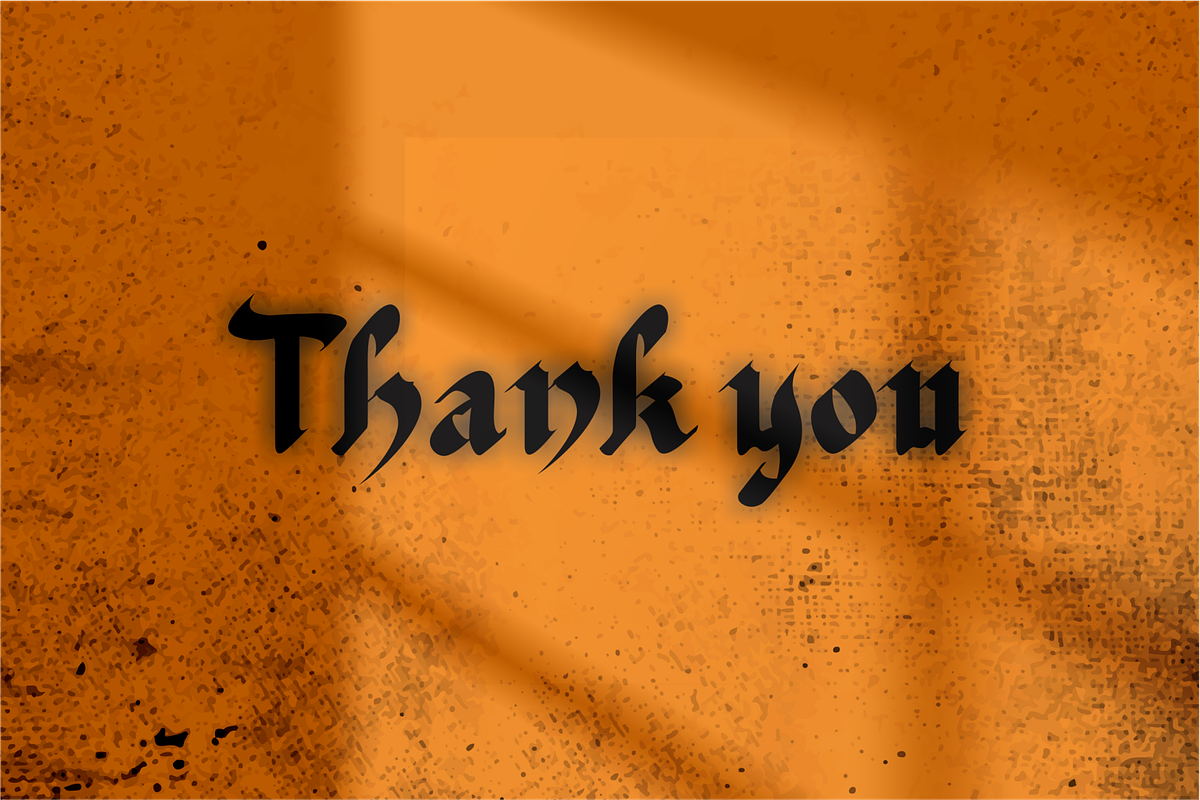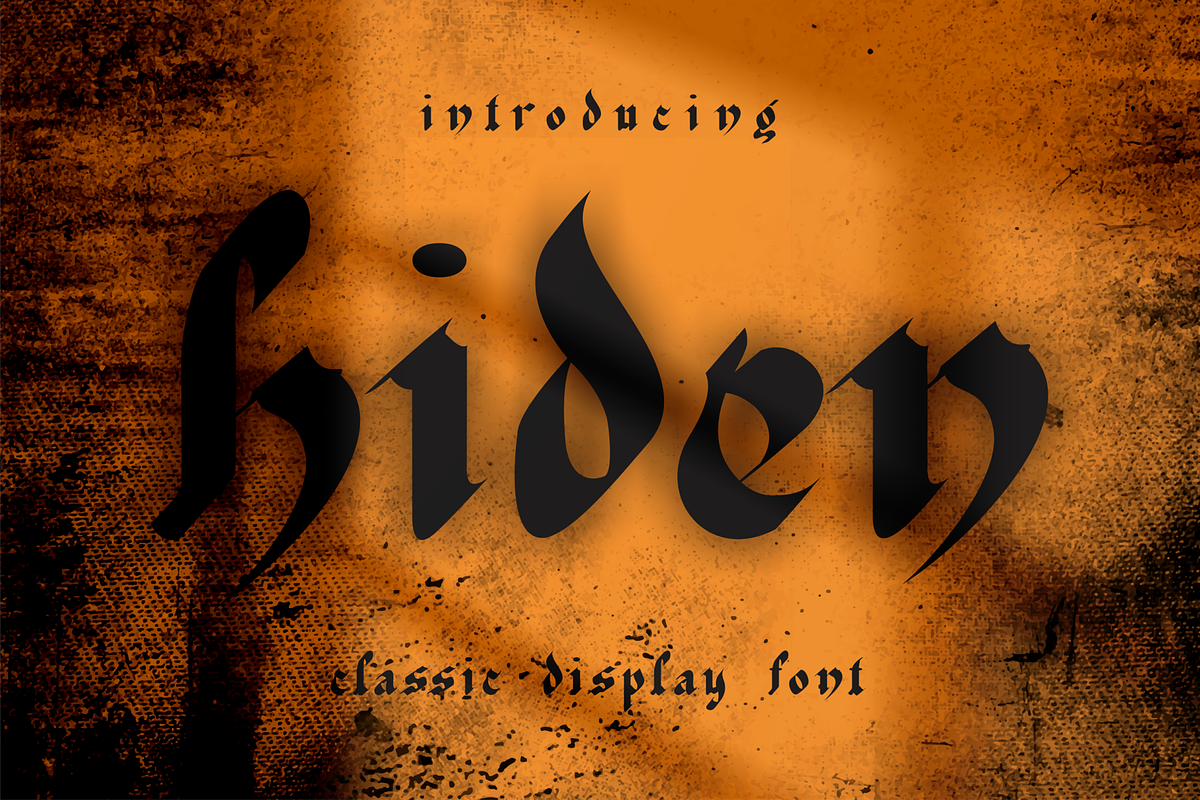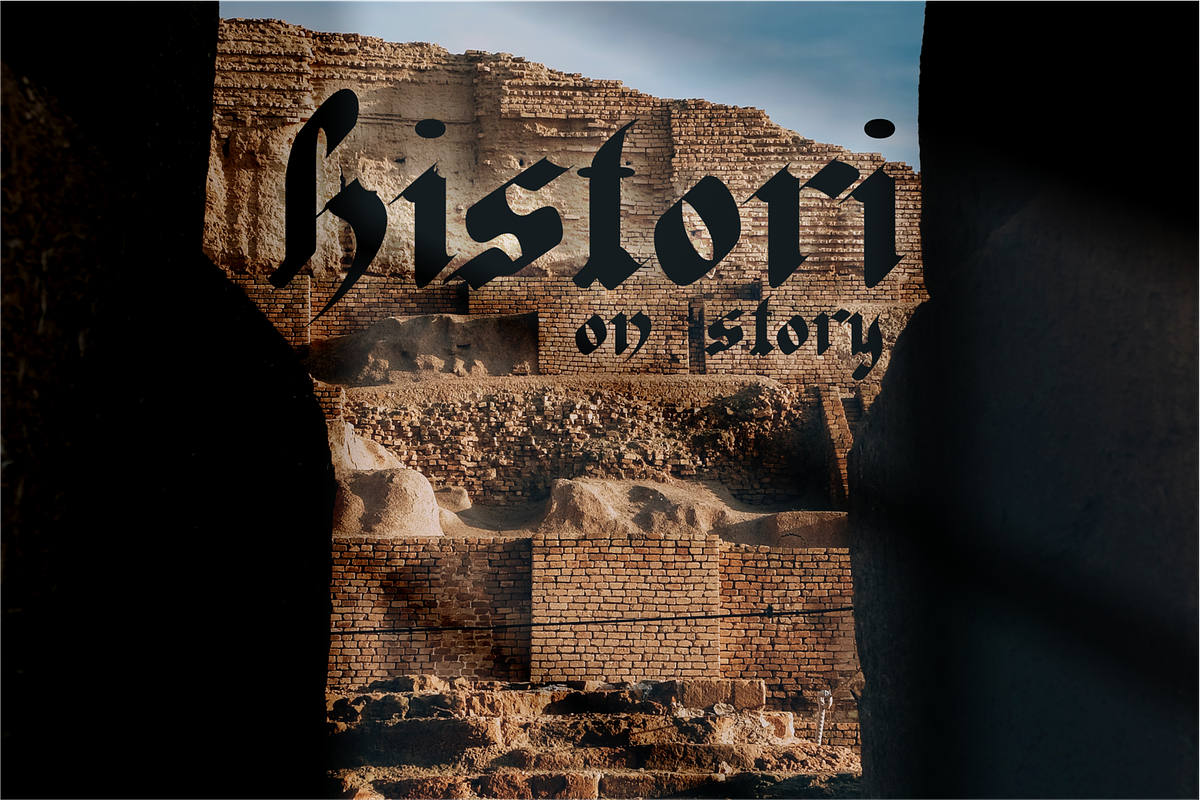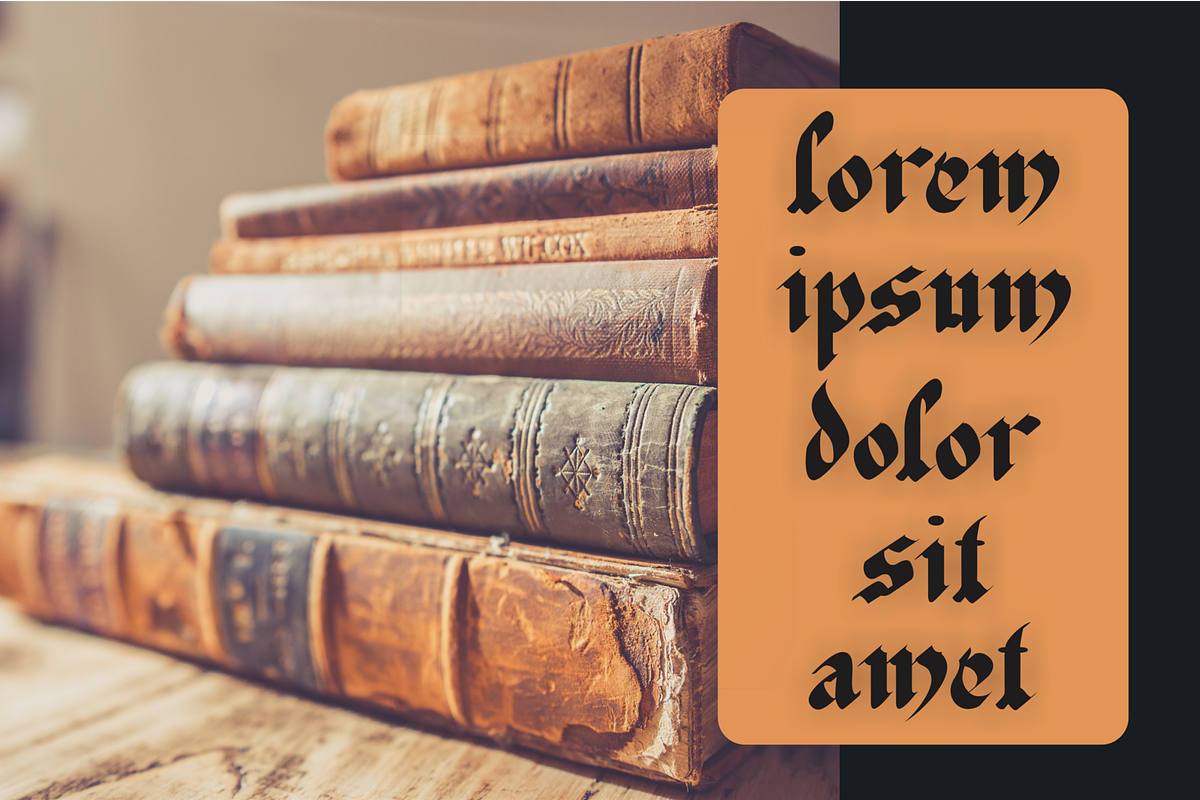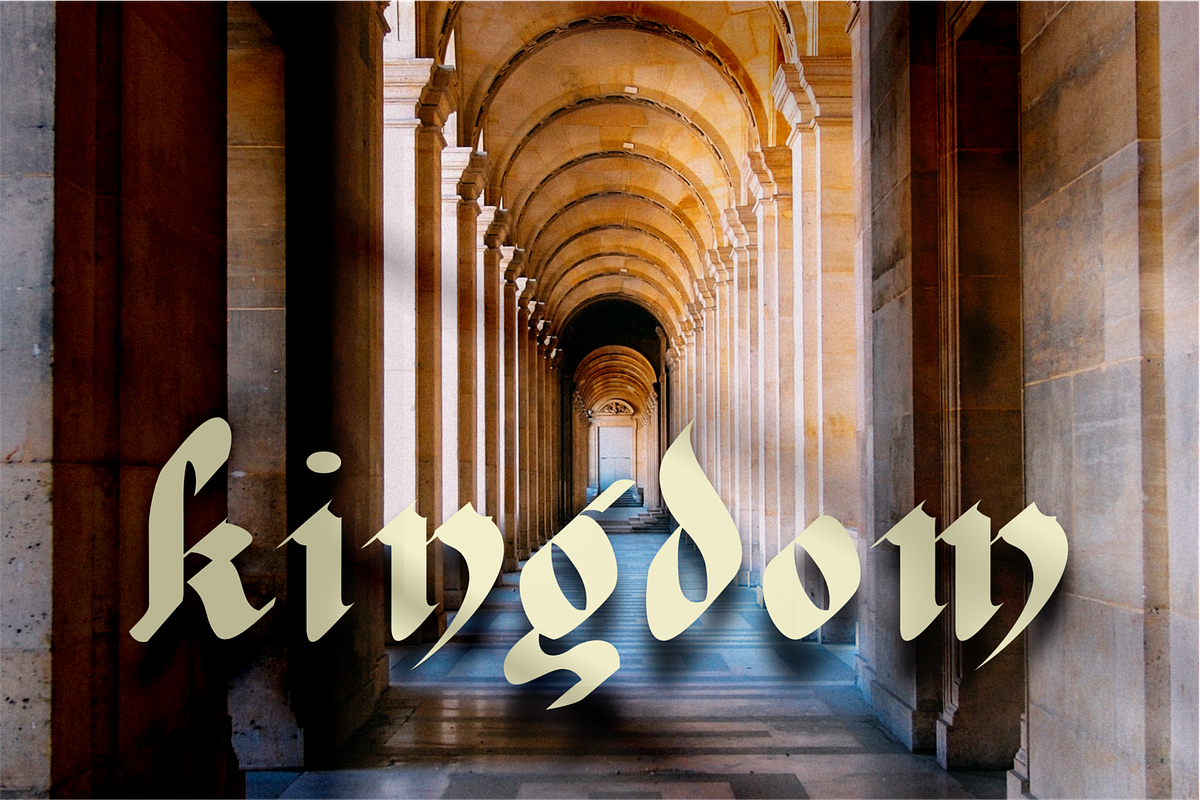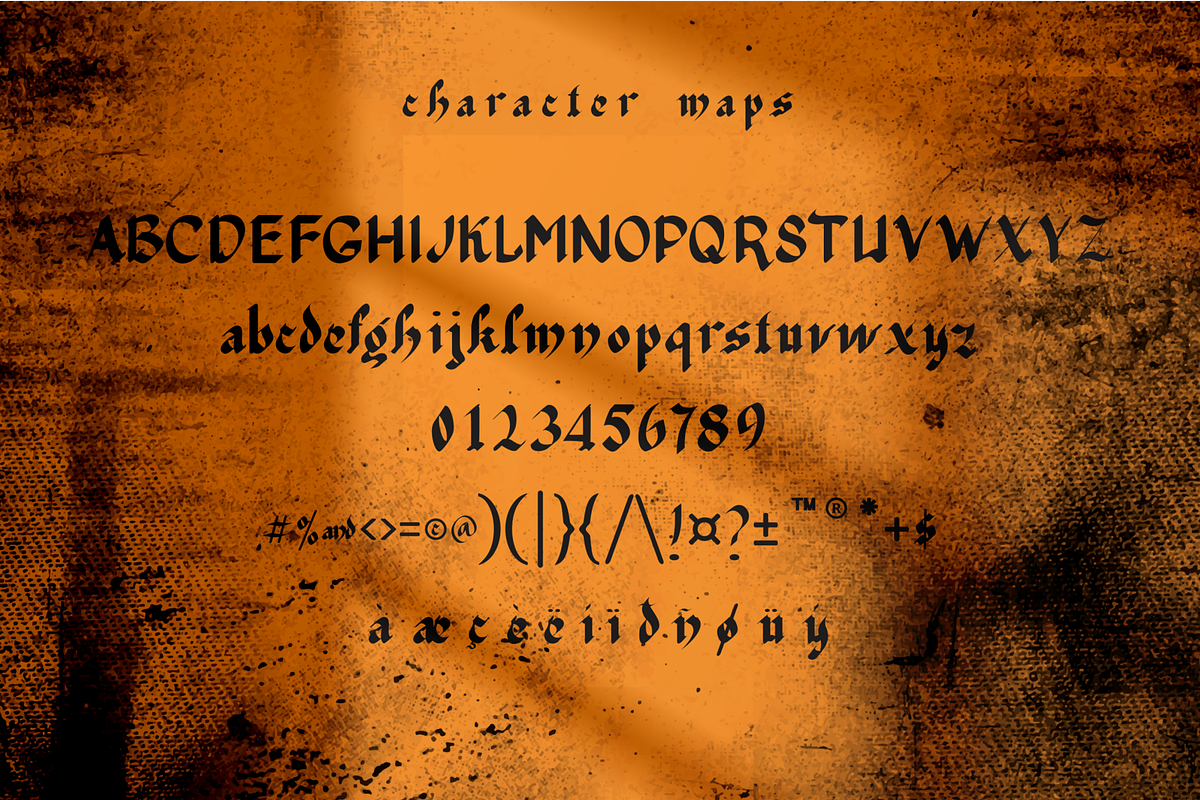
Hiden
introducing our new "Hiden" Display font with classic style this is perfect for branding, logos, invitation, masterheads and more.
features ;
- number & Punctuation